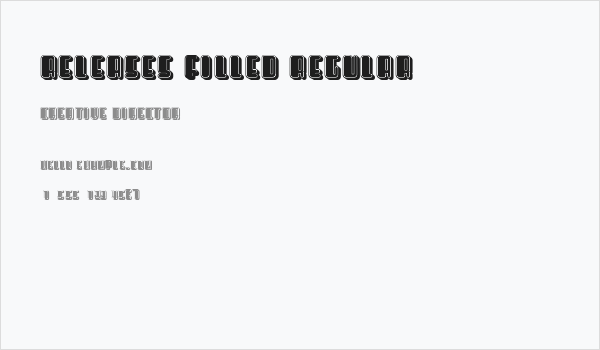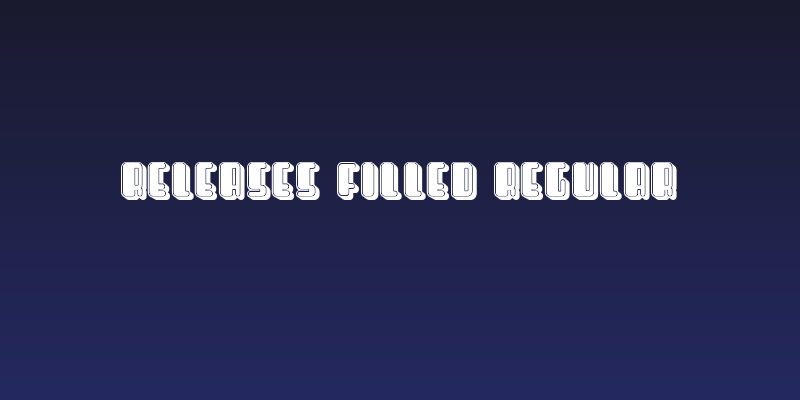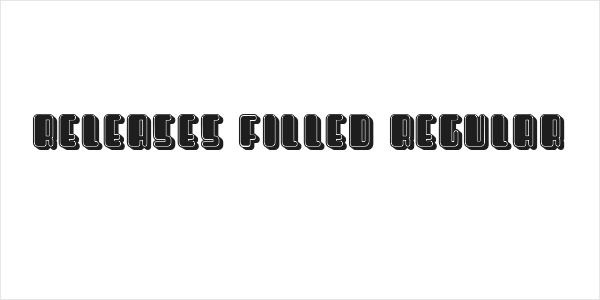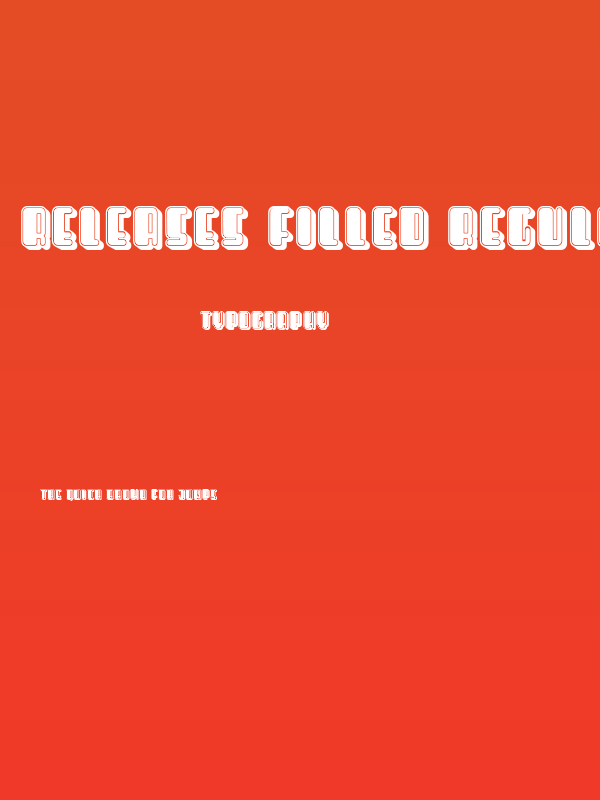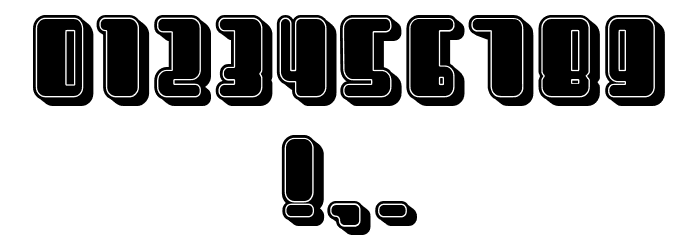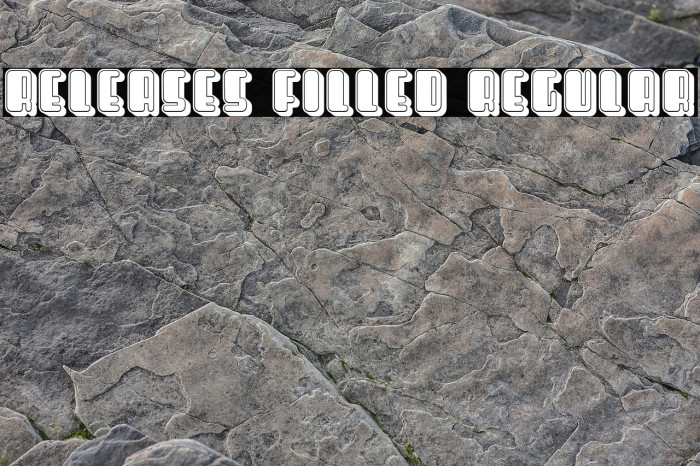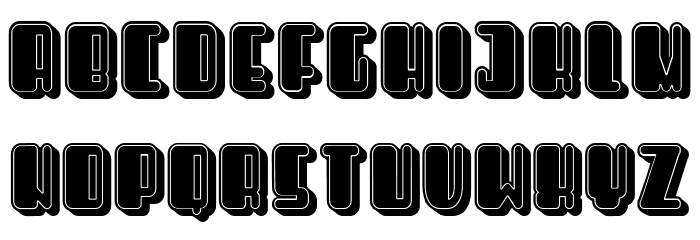
Releases Filled Regular Font
Releases Filled Regular Description
This font features a bold, filled style with a distinct outline that gives it a three-dimensional appearance. The characters are uniformly thick, creating a strong visual impact. The design is modern and playful, with rounded edges that soften the overall look. The uppercase and lowercase letters maintain a consistent style, ensuring readability while adding a unique flair. The numbers and special characters follow the same design principles, making them cohesive with the alphabet. This font is ideal for projects that require a bold statement and a touch of creativity.
| Proposed Projects | Ideal for posters, headlines, branding, and any design needing a bold, eye-catching font. |